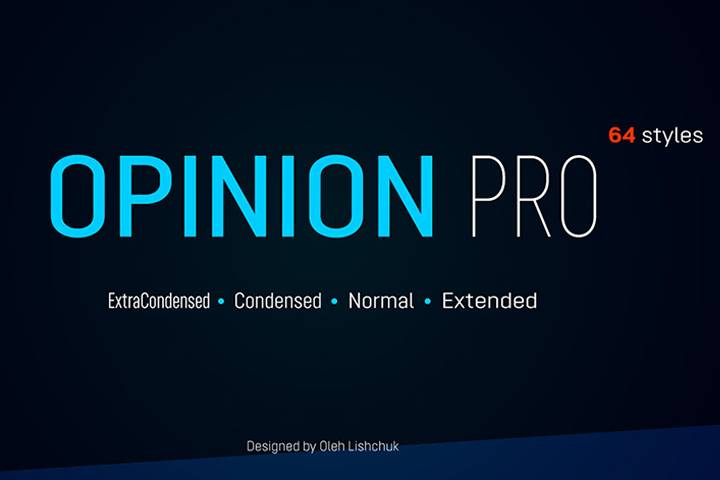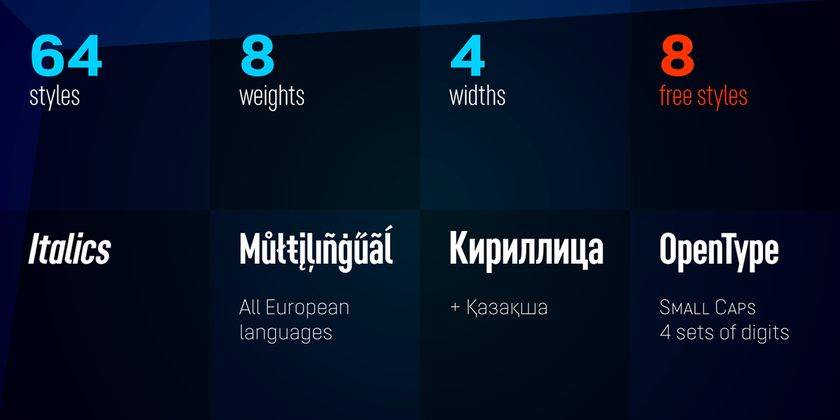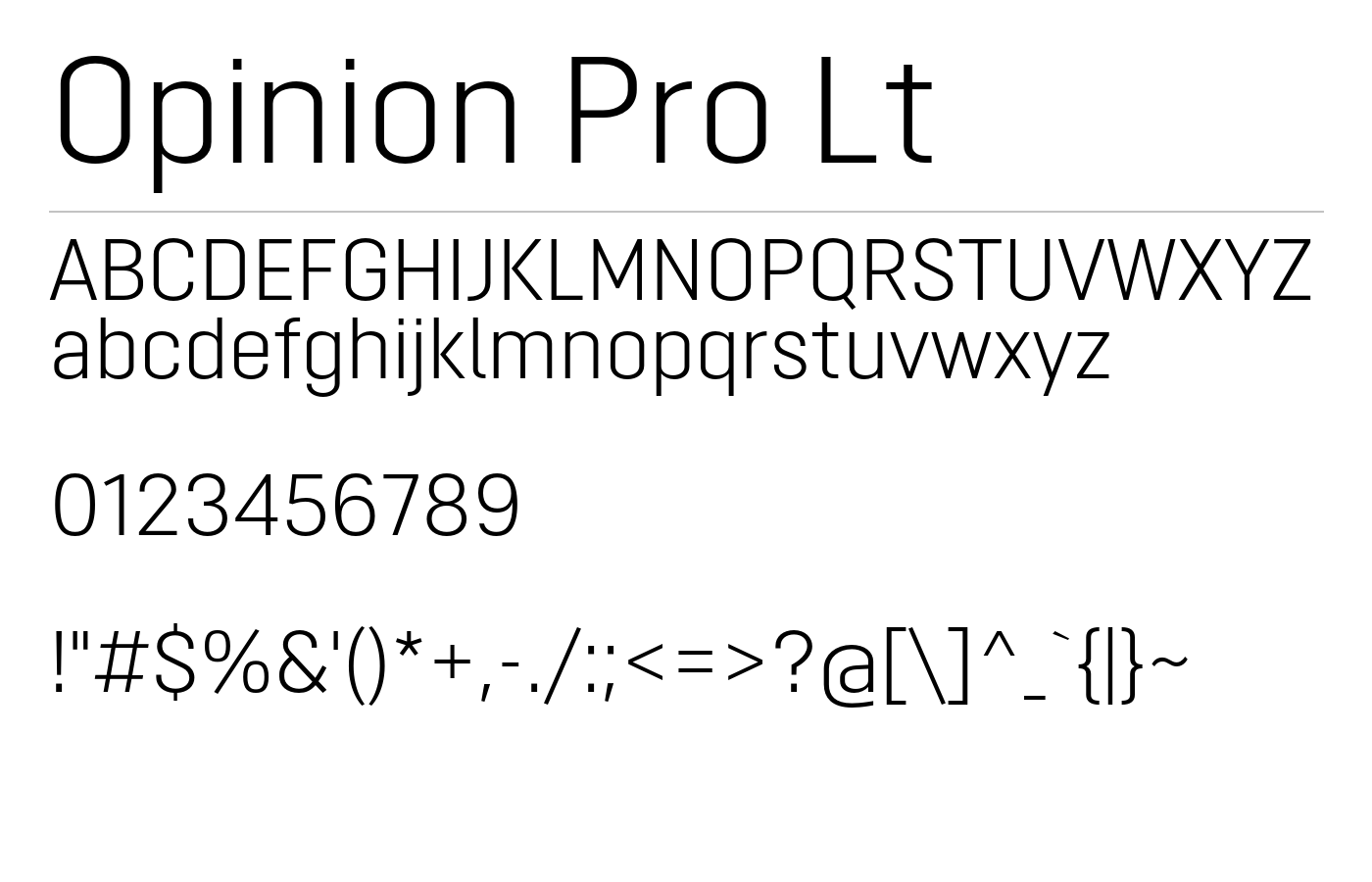
Opinion Pro is a sleek, modern sans serif font with a light weight and tall, narrow letterforms that create a clean and elegant appearance. Its low contrast strokes and geometric shapes make it highly legible, ideal for contemporary branding, editorial headings, and digital interfaces that require a refined yet approachable style. This font works well in settings where clarity and sophistication blend seamlessly, such as fashion, tech, and minimalist design projects.
Opinion Pro Typeface Demo
About Opinion Pro Typeface Demo
| Font family | Opinion Pro Typeface Demo |
| Designer | Oleh Lishchuk |